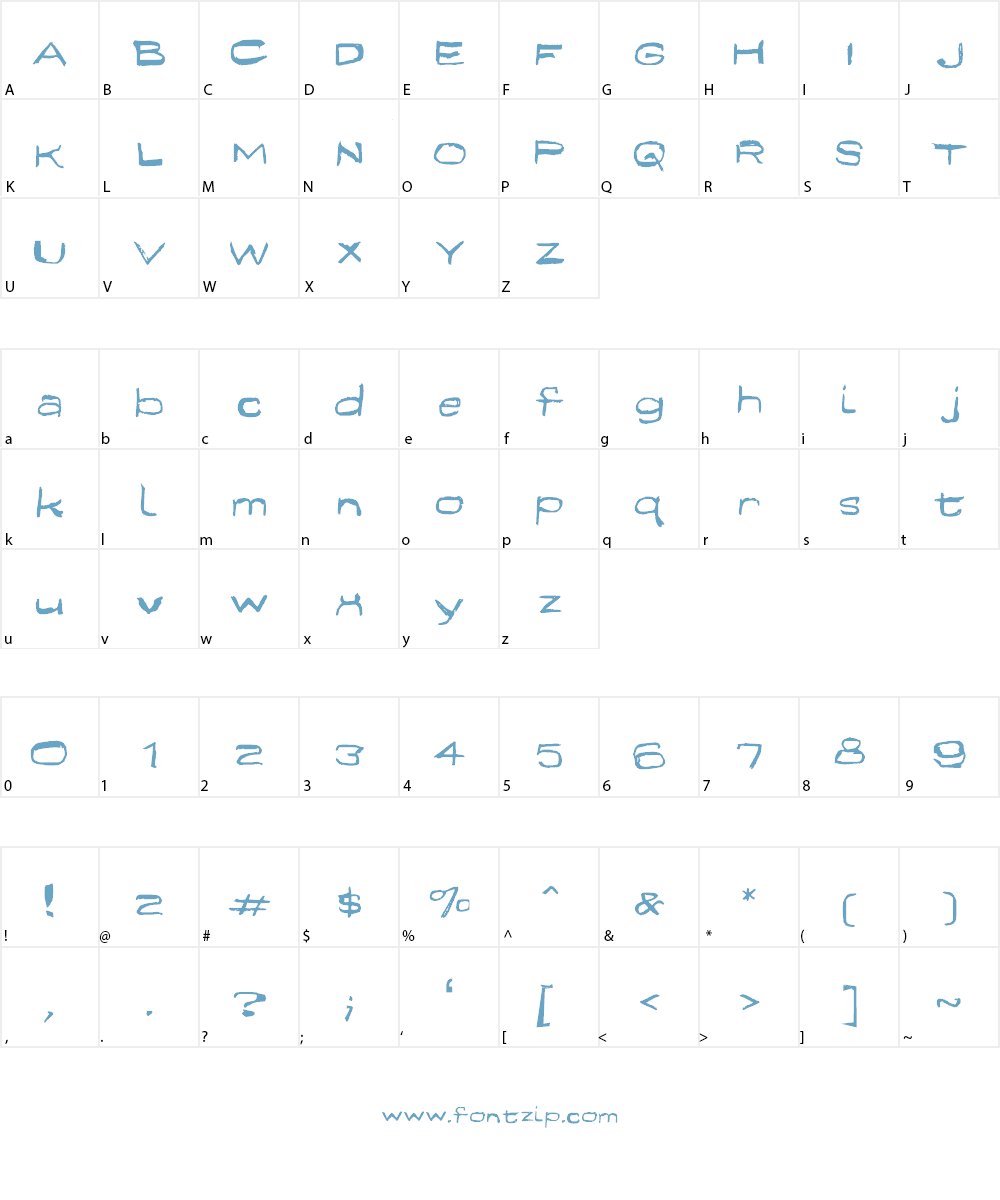
After 30 years, we are retiring the Fun Euro name. The first Fun Euro font was drawn in 1986. Don't worry, this and other fonts will still be offered, and for free. Just under a different name, -and that name just happens to be none other than Russelfeiring Blast.
The name is in the less serious spirit of most of the Fun Euro fonts. Russelfeiring is a season from May first through seventeenth where people (mostly college age) celebrate much how Mardi Gras in New Orleans was celebrated prior to Hurricane Katrina. This holiday is Norweigan in origin. While Norway is not a part of the European Union, the nation is still in Europe -as in the continent. That's what makes the new name still "of Europe". Although we won't be doing it immediately, on the specimens with the old Fun Euro name is still appearing, we will eventually edit out the Fun Euro name and replace it with the new Russelfeiring Blast name.